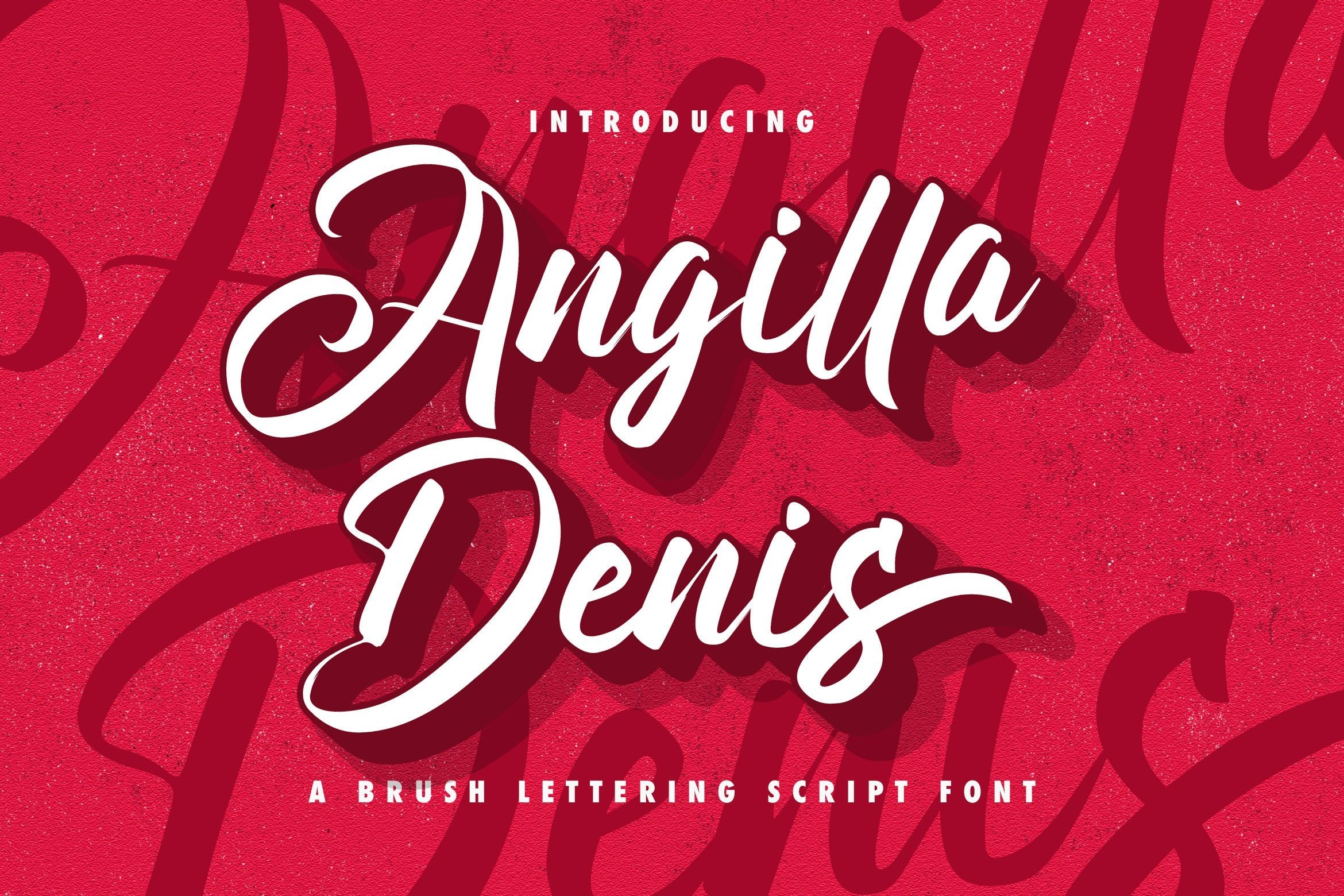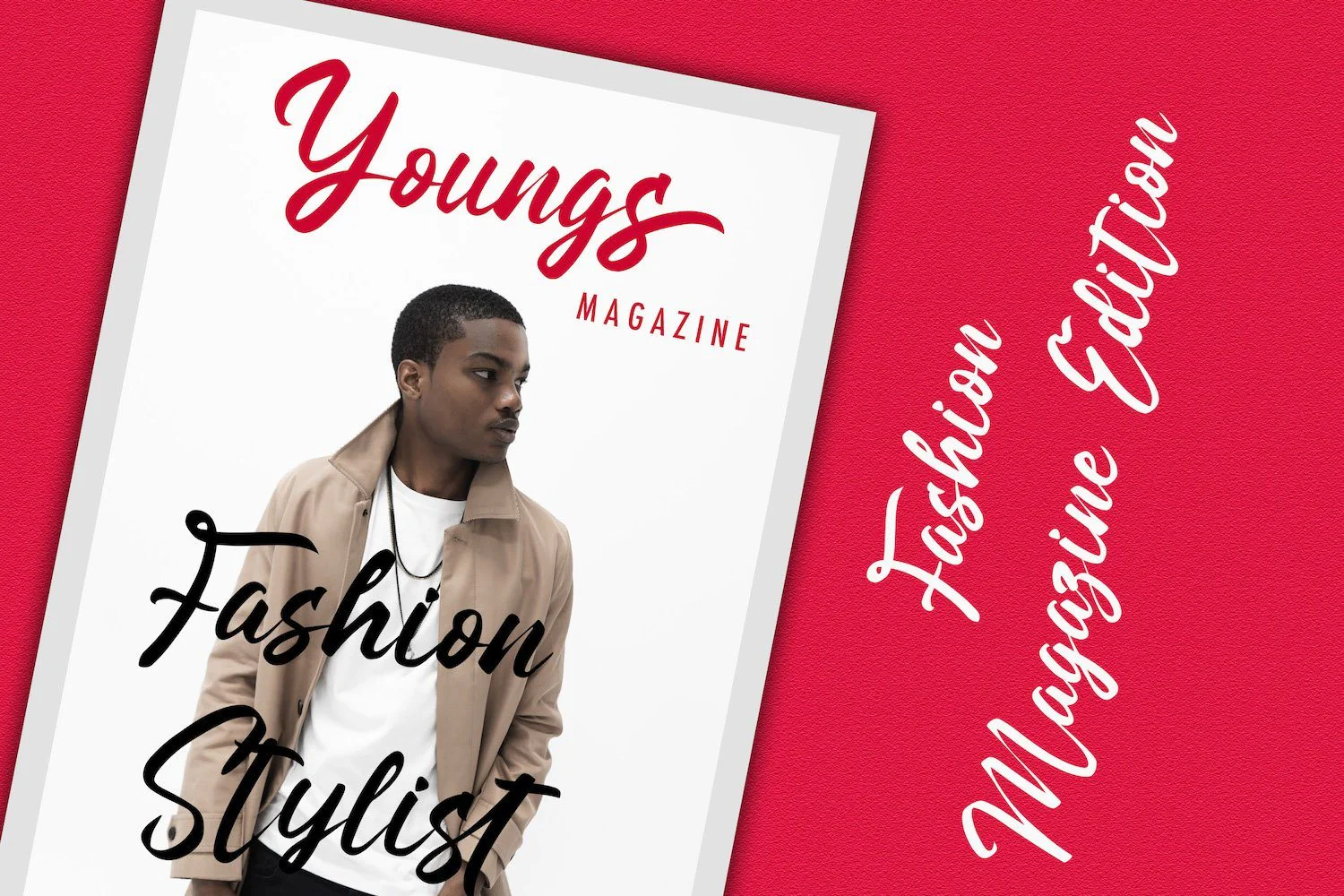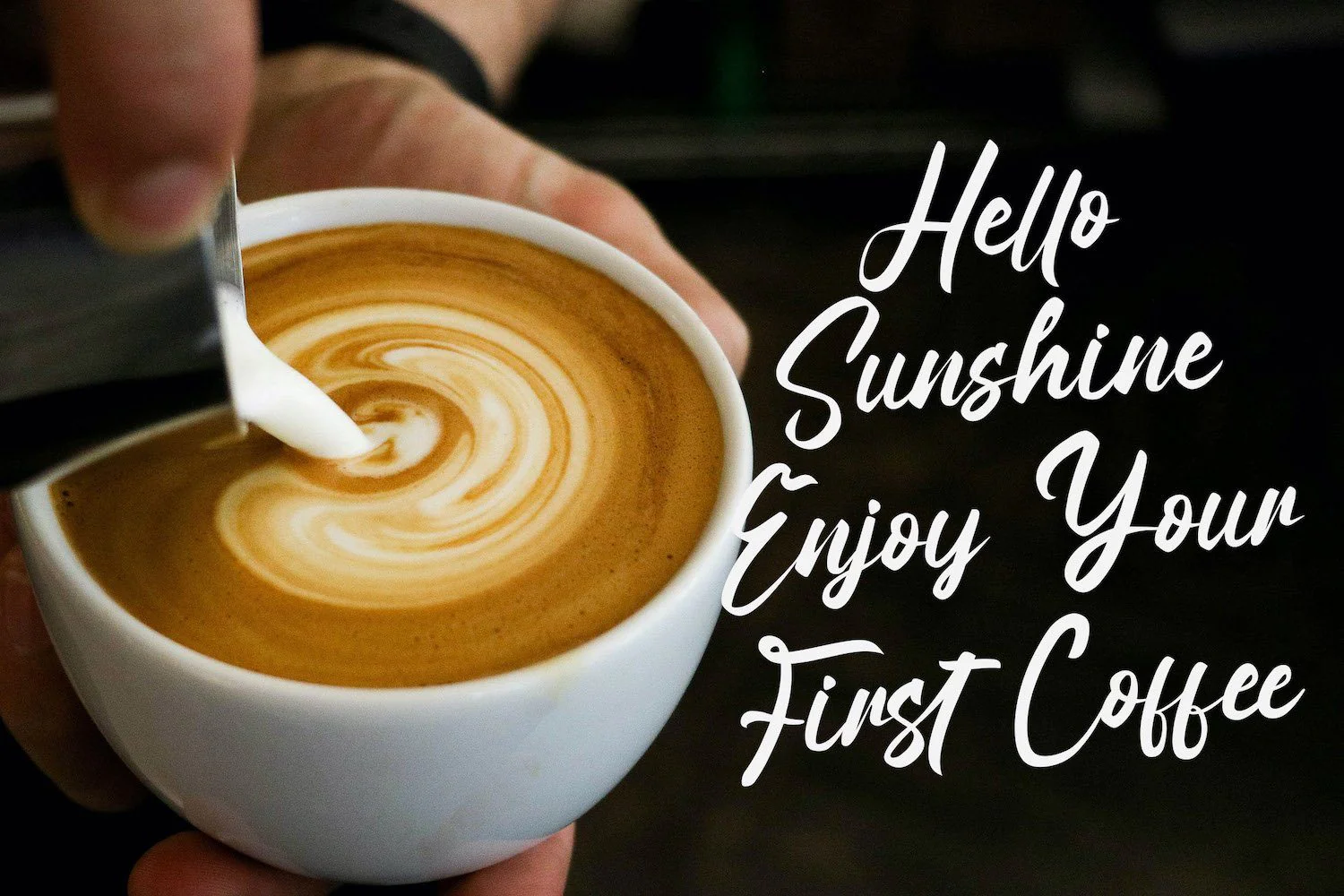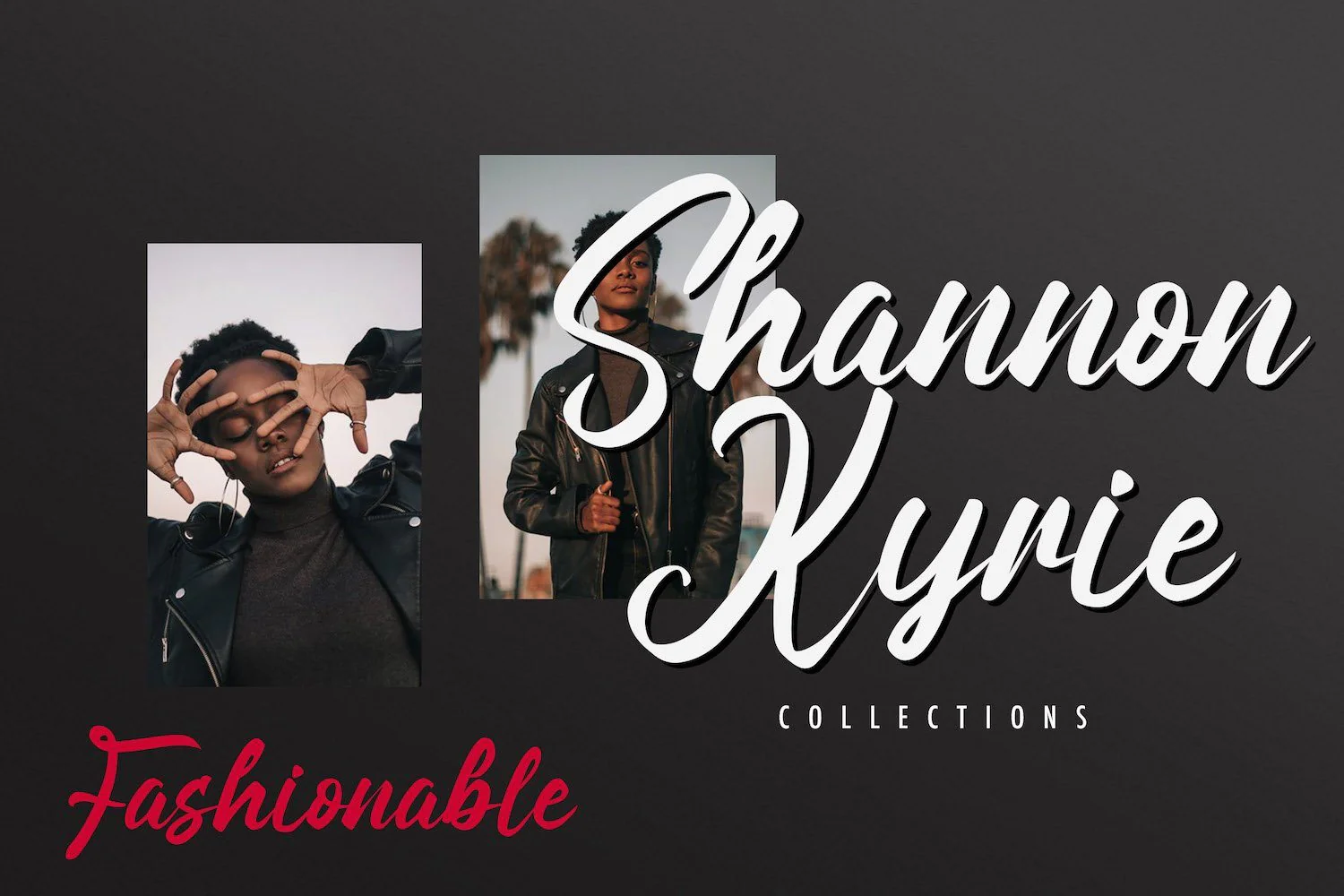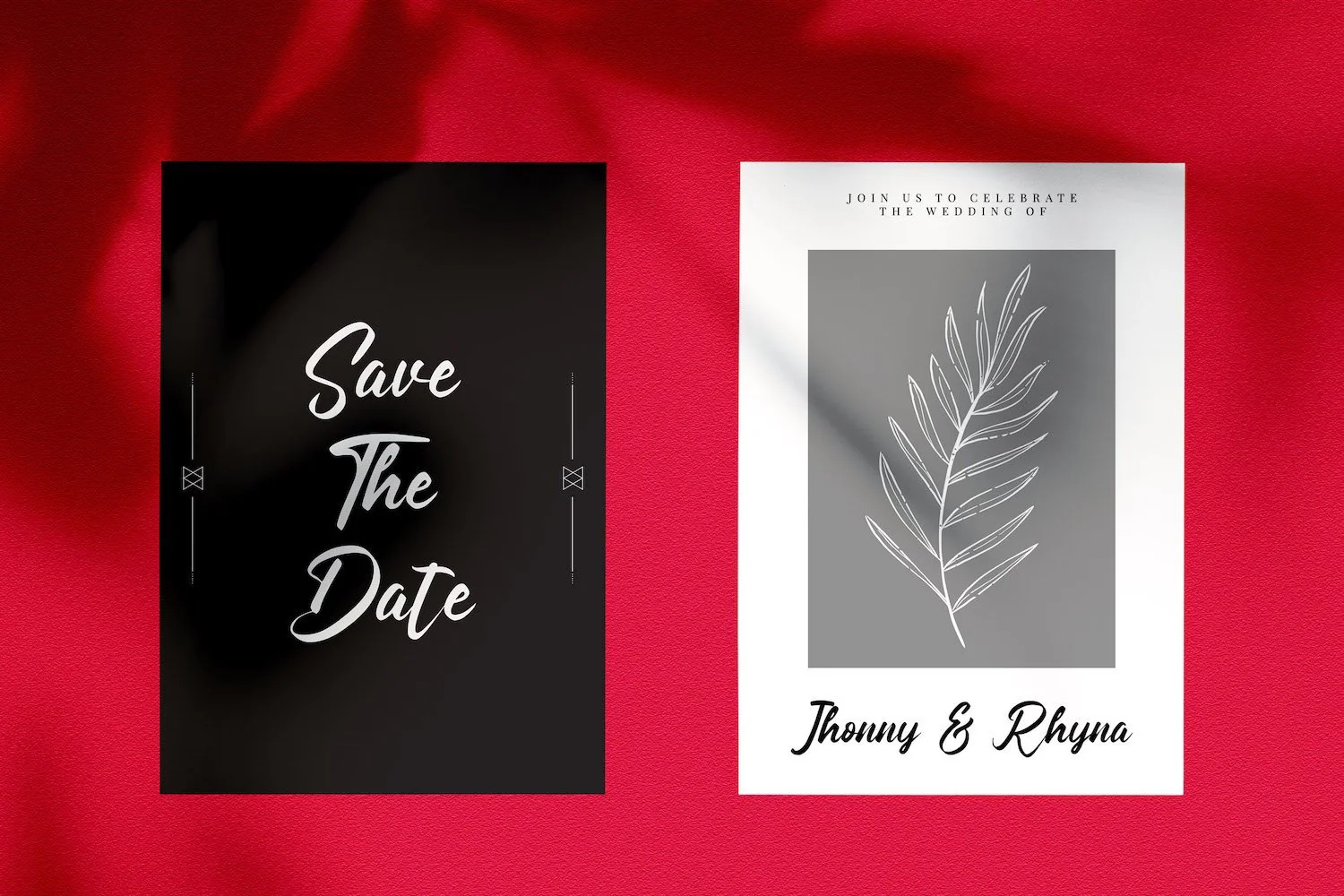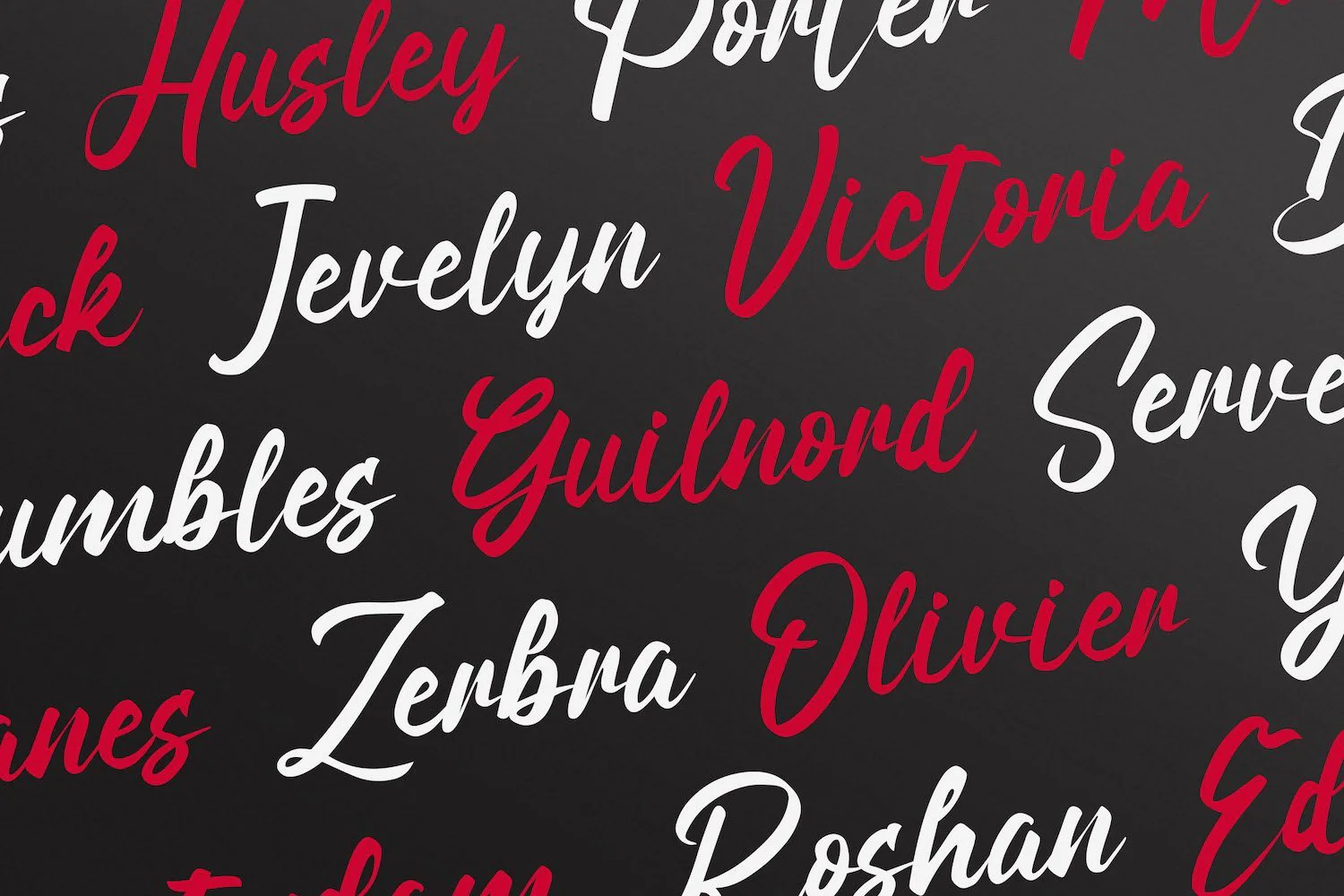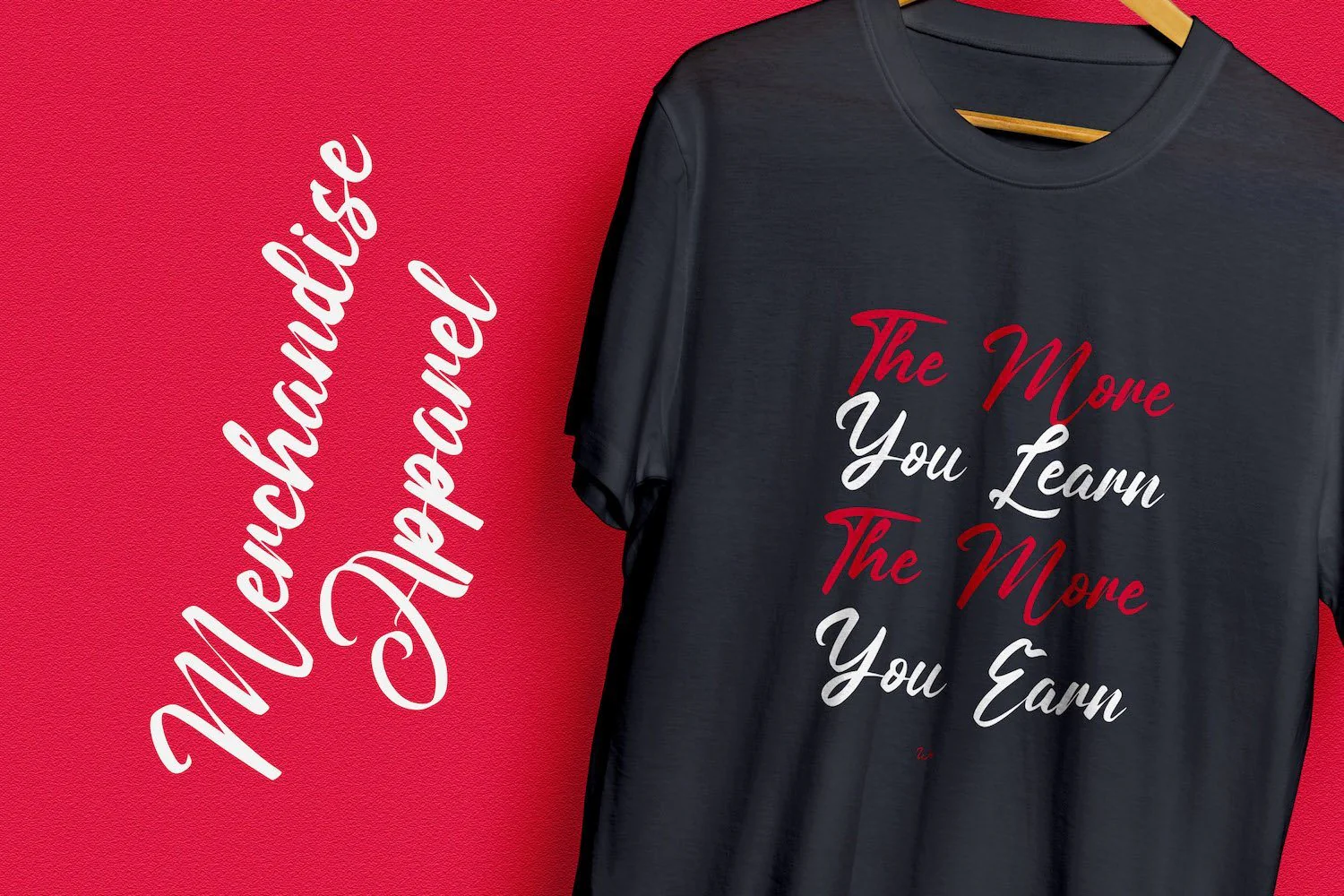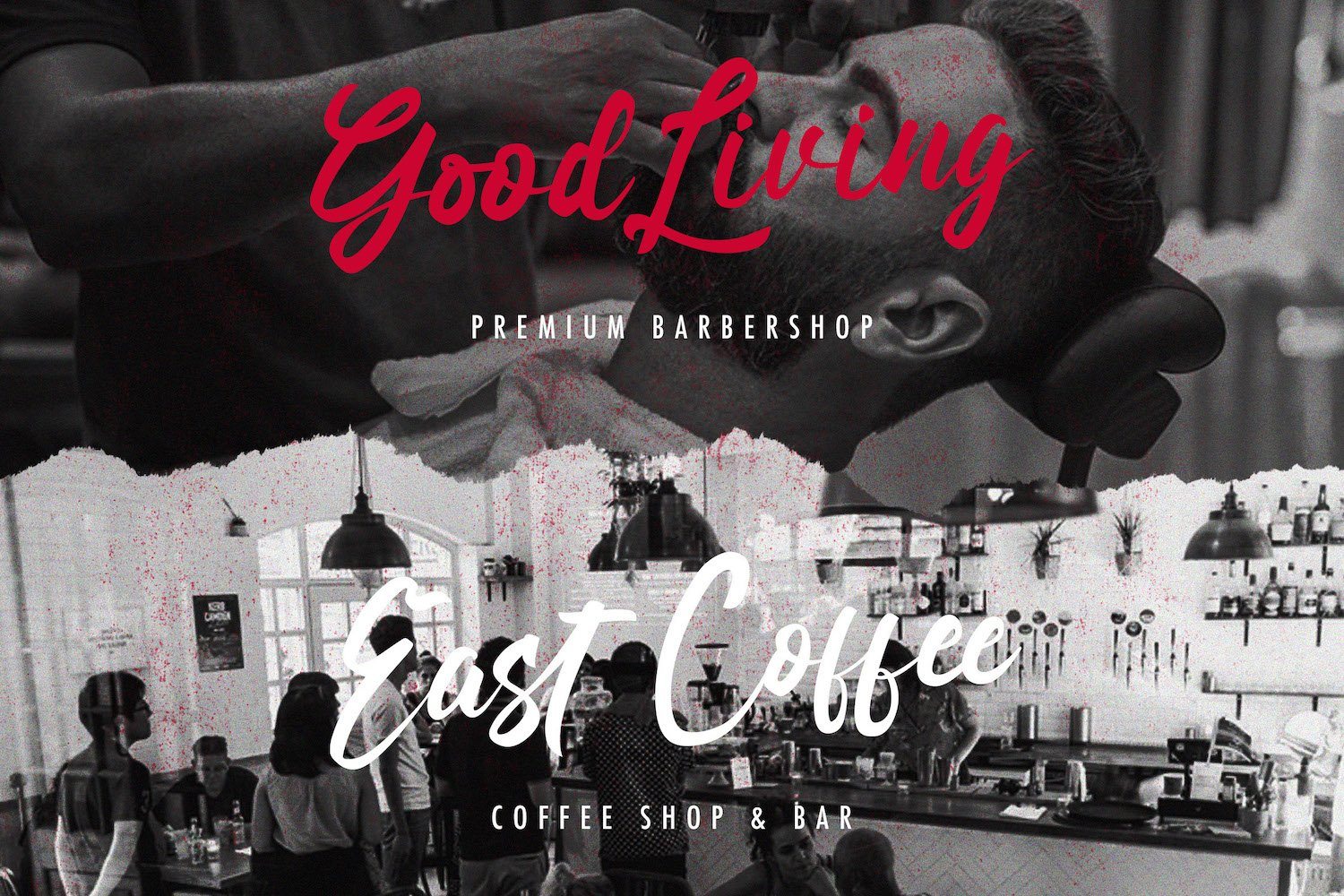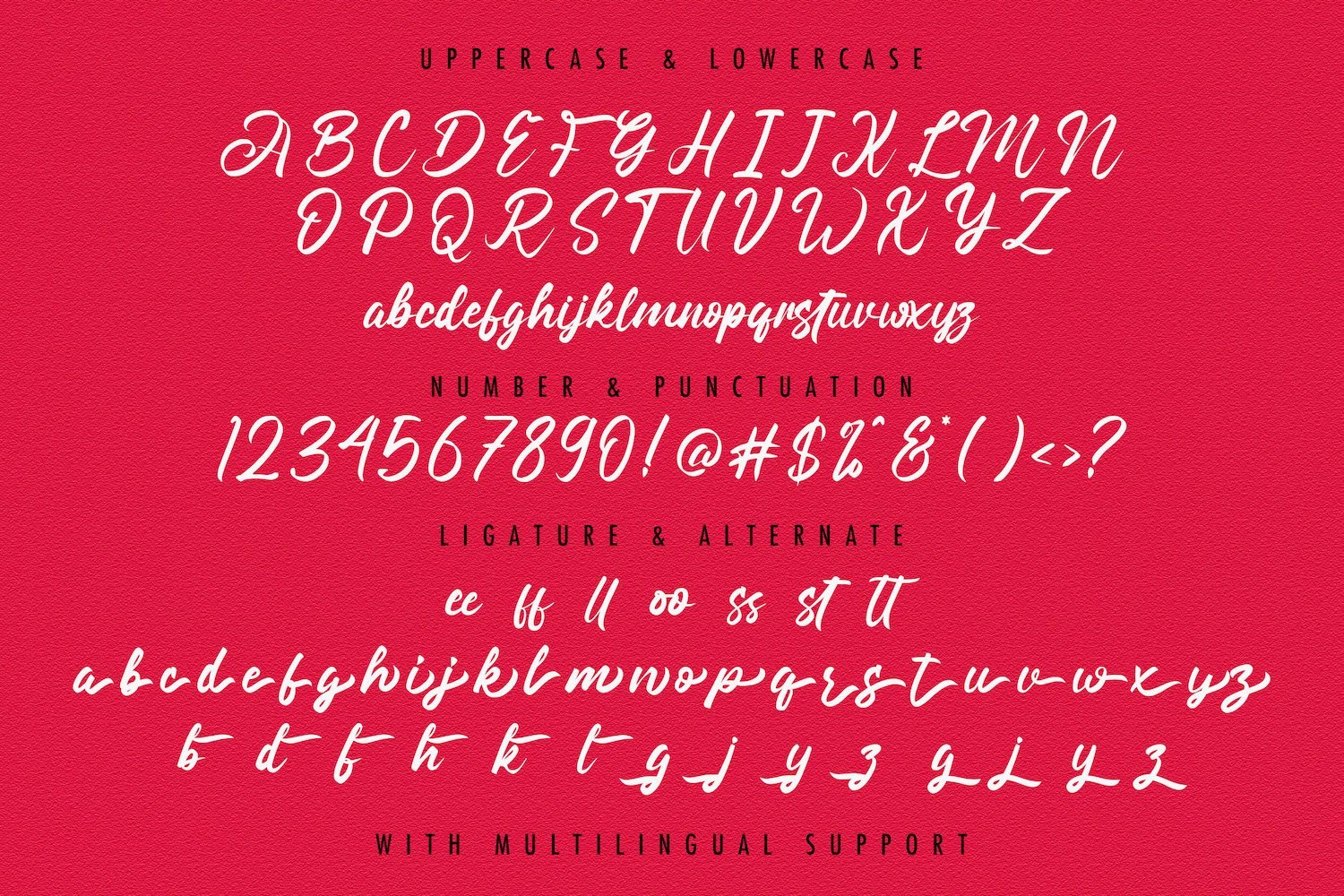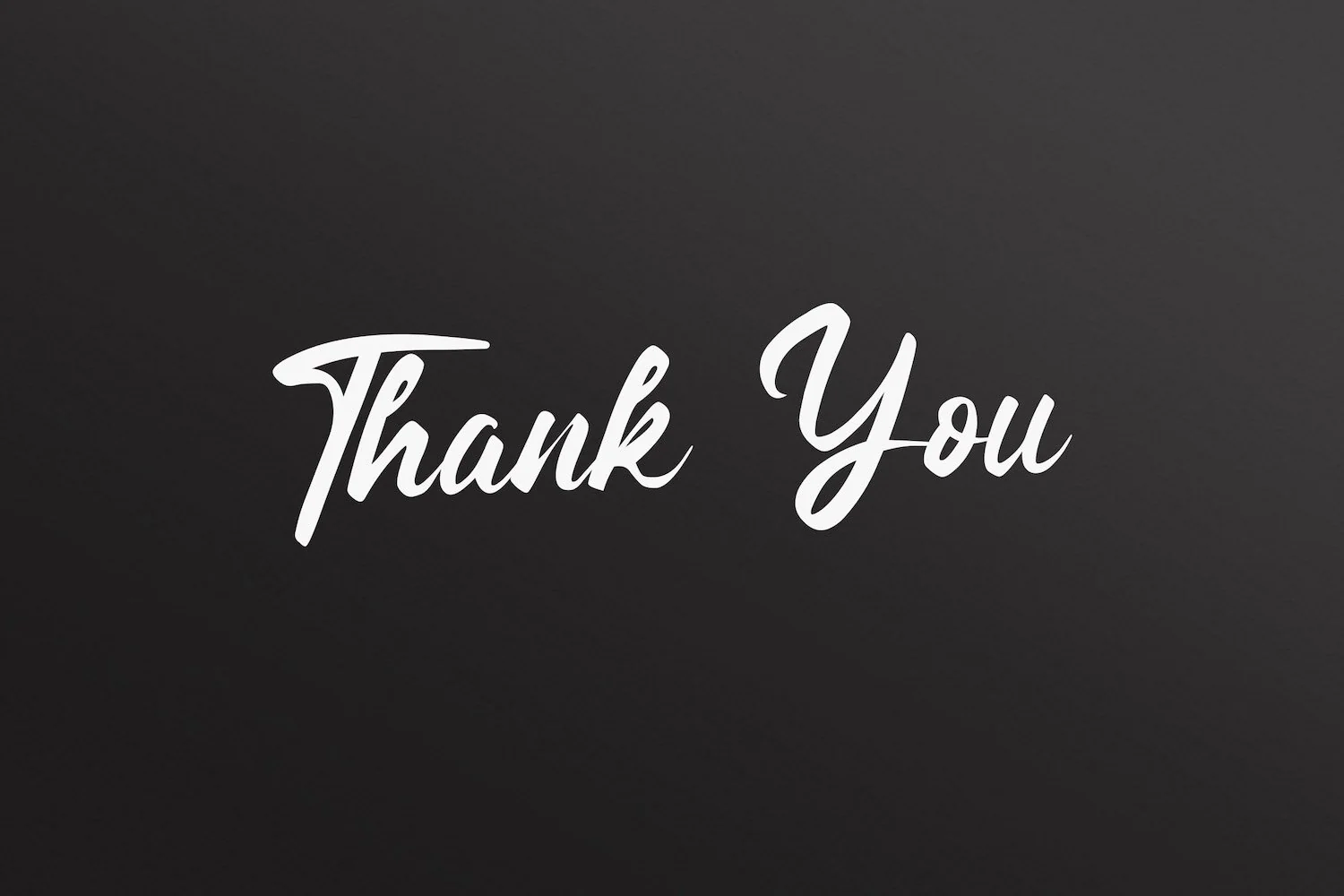
Angilla Denis - Brush Script Font
Introducing Angilla Denis - Brush Script Font
Angilla Denis is a flowing and elegant handwritten font, created with the help of a brush pen. Get inspired by its unique and beautiful style and add it to your favorite designs!
Introducing Angilla Denis - Brush Script Font
Angilla Denis is a flowing and elegant handwritten font, created with the help of a brush pen. Get inspired by its unique and beautiful style and add it to your favorite designs!